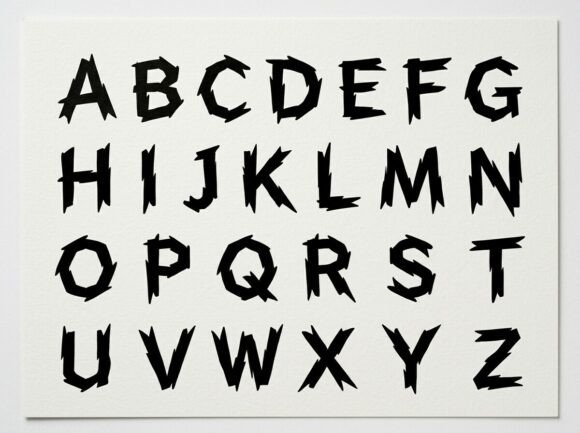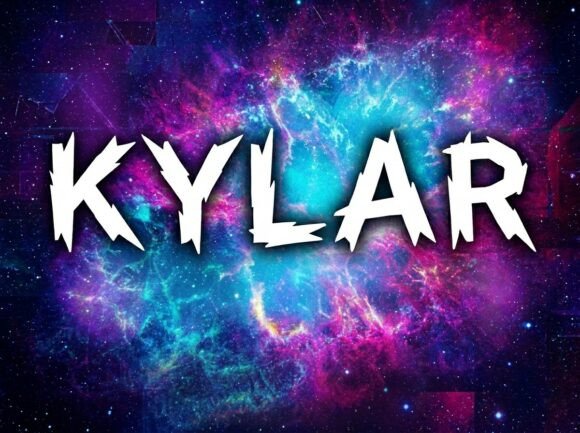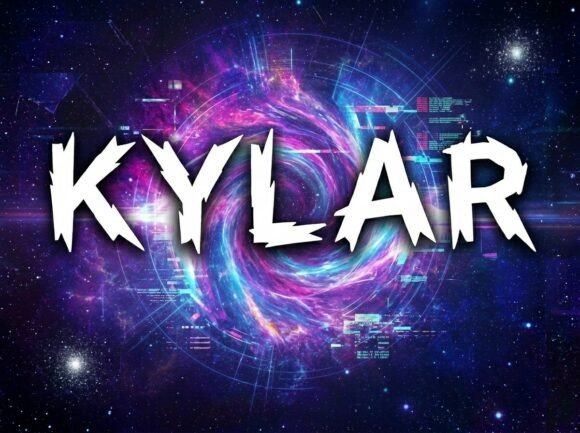
Introduction to Kylar Font
β€œThis font is a stunning decorative display font designed to be the center of attention.
Featuring unique artistic elements and a strong visual personality, this font is perfect for creators who want to break away from the ordinary This font is versatile enough for bold headlines, artistic logos, and creative packaging, while maintaining a professional and polished finish.
Kylar Font offers exceptional quality and versatility, making it a valuable addition to your design toolkit. Whether you’re creating for personal projects or commercial use, Kylar Font delivers professional results.